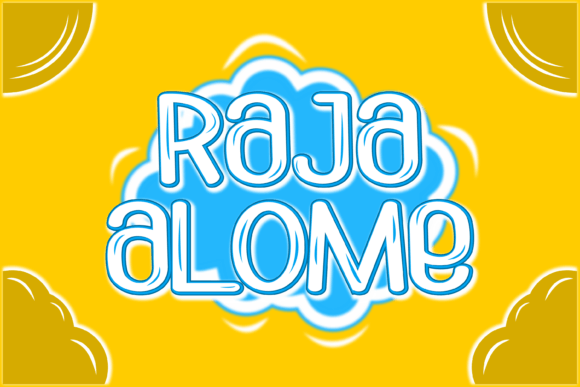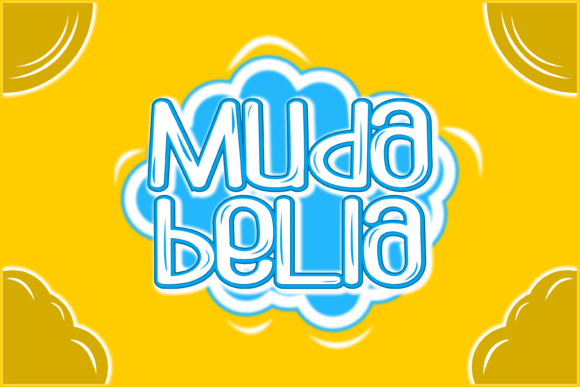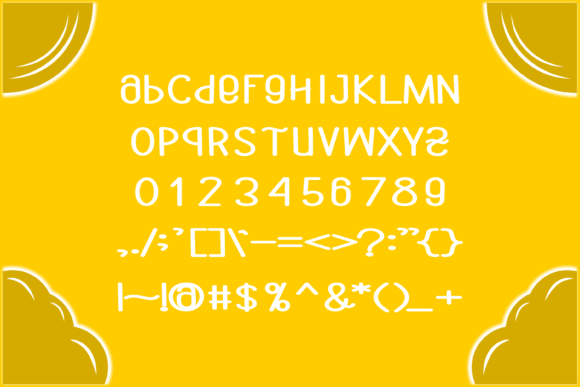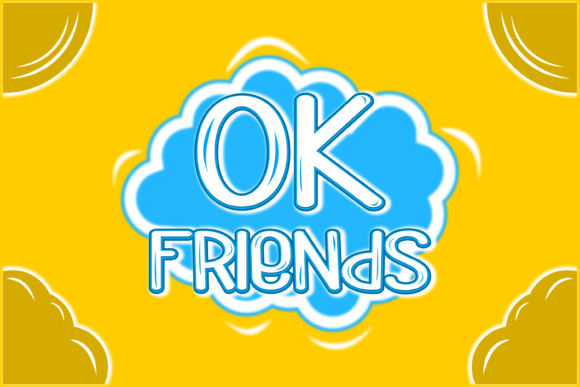
Discover the Fun in Typography with Bagindros Font
Have you ever been browsing through design inspiration boards and stumbled upon a font that makes you smile? That’s exactly what happened to me when I first laid eyes on the Bagindros Font. Its bouncy, modern characters immediately caught my attention, and I knew I had to learn more about this charming display font.
Bagindros Font is a unique typeface designed to add a touch of whimsy and personality to your designs. Whether you’re a graphic designer, artist, or simply a creative enthusiast, this font is sure to help you stand out from the crowd. With its playful, hand-drawn feel, Bagindros Font is the perfect choice for designers looking to inject some fun and flair into their work.
So, what makes Bagindros Font so valuable to designers? For starters, its versatility makes it a great addition to any design project. From branding and advertising to digital media and print materials, Bagindros Font is sure to bring a smile to your audience’s faces.
Bagindros Font Key Features
- Font Family: Bagindros Font is a sans-serif font family with 4 styles: Light, Regular, Medium, and Bold.
- Unique Characteristics: Bagindros Font features a unique, geometric design with clean lines and a modern feel, making it ideal for digital products and branding.
Review of Bagindros Font
Overall, I’d say that Bagindros Font is a decent choice for certain design projects. Here are some things that I think work well: ✨
- Unique, modern design that stands out from more traditional fonts.
- Great for headings and titles, adding a touch of sophistication to any design.
- Supports multiple languages, making it a versatile option for global audiences.
However, there are some limitations that should be taken into consideration: ⚠️
- May be too bold for some designs, potentially overwhelming the content.
- Lack of subtlety in certain letter combinations, which can make text harder to read.
- May not be suitable for body text due to its large x-height and condensed proportions.
Overall, I think Bagindros Font is a solid choice for projects that require a modern, eye-catching font. Just be mindful of its limitations and use it judiciously to avoid overwhelming your design.
Tips for Getting the Most Out of Bagindros Font
To maximize the effectiveness of Bagindros Font, use it for headings, titles, and other prominent text elements. This will help draw attention and create visual interest.
Bagindros Font is ideal for creative projects, such as:
- Graphic design
- Typography-based art
- Print and digital marketing materials
Alternatives to Bagindros Font for Designers
Great Vibes is a modern, elegant script font designed by Laurent Bourdelas. It’s ideal for creating a sophisticated and luxurious feel in designs, especially in branding, invitations, and packaging. Great Vibes has a more refined and polished look compared to Bagindros Font, which makes it suitable for high-end designs.
Dancing Script is a fun, elegant script font designed by Pablo Impallari and Martin Sommerness. It’s perfect for adding a touch of whimsy and playfulness to designs, such as posters, social media graphics, and advertising materials. Dancing Script has a more dynamic and expressive feel compared to Bagindros Font, making it suitable for designs that require a sense of movement and energy.
Lobster is a casual, cursive font designed by Pablo Impallari and Martin Sommerness. It’s ideal for creating a relaxed and approachable feel in designs, especially in social media graphics, blog posts, and product labels. Lobster has a more laid-back and friendly vibe compared to Bagindros Font, making it suitable for designs that require a sense of informality and approachability.
Q: Does Bagindros Font support various languages and character sets?
Yes, Bagindros Font supports multiple languages and character sets, including Latin, Cyrillic, Greek, and Devanagari. The font also includes a wide range of special characters, such as punctuation marks, symbols, and emoji. However, please note that the font’s language support may vary depending on the specific weight and style you are using